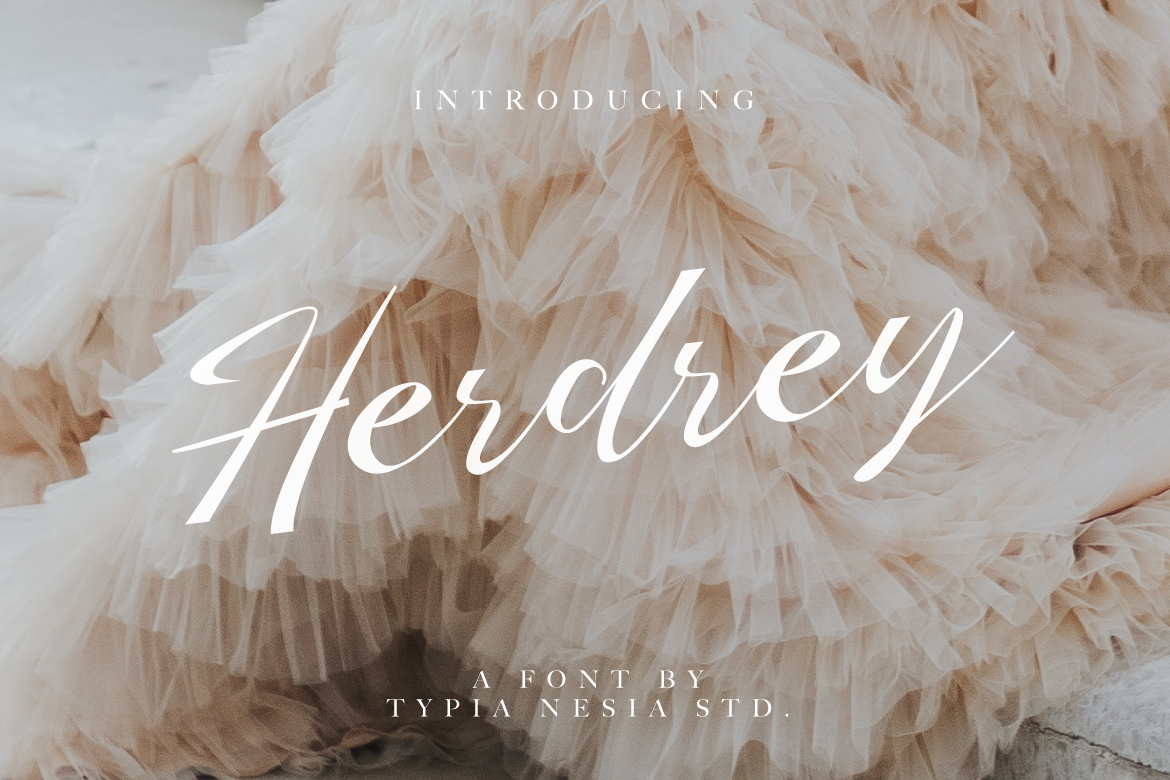
Herdrey an elegant and modern calligraphy / cursive font.
Herdrey is perfect for your up coming projects. Such as modern invitation design, branding, stationery design, blog design, modern advertising design, card invitation, art quote, home decor, book/cover title, special events ( wedding, birthday, etc ), and any modern elegant calligraphy needs.